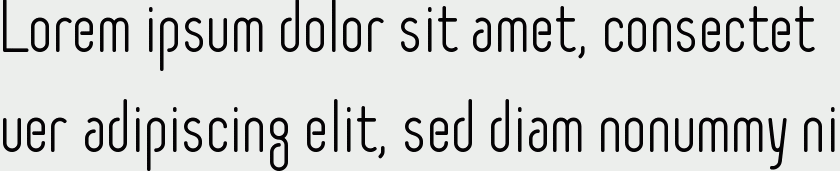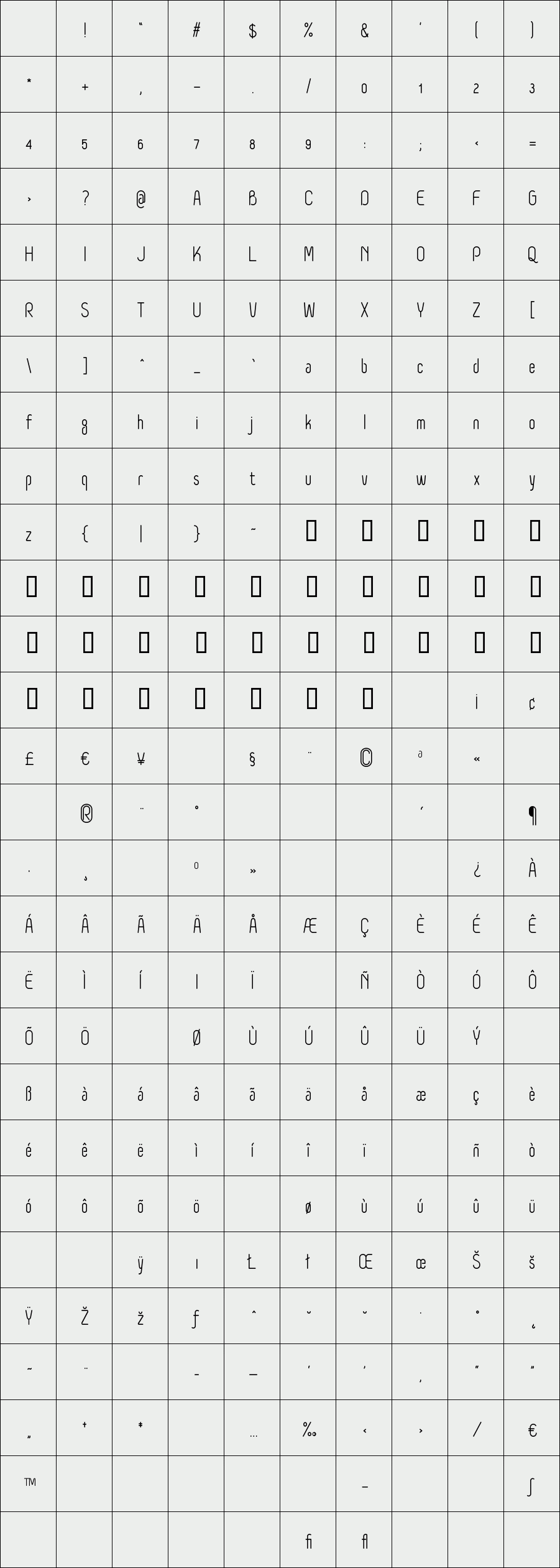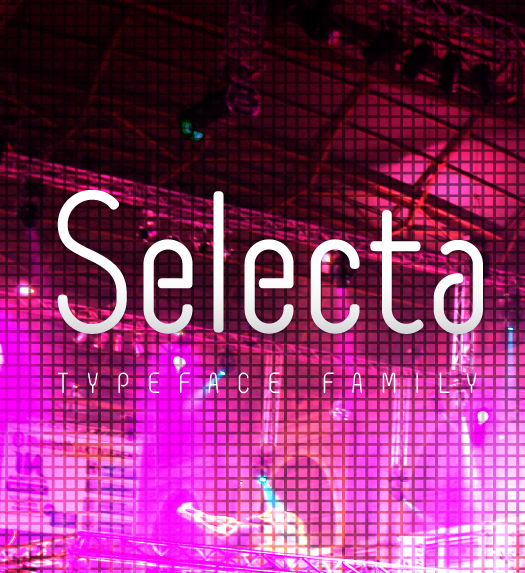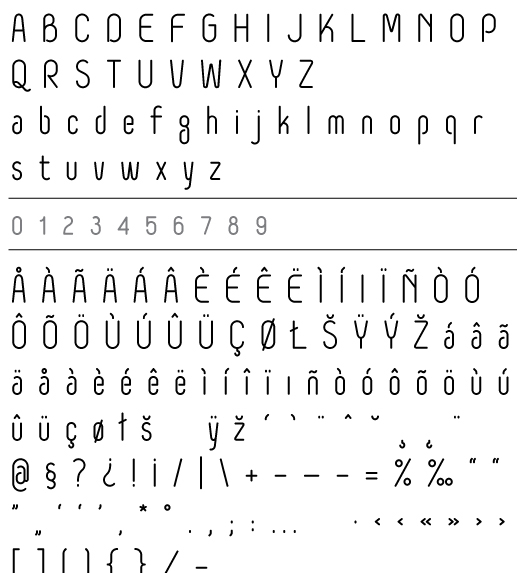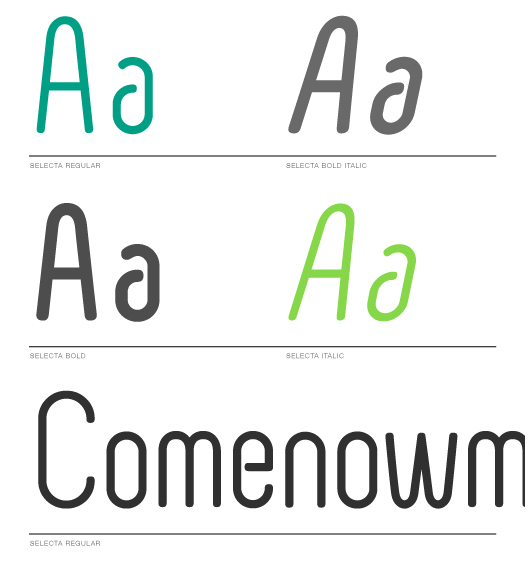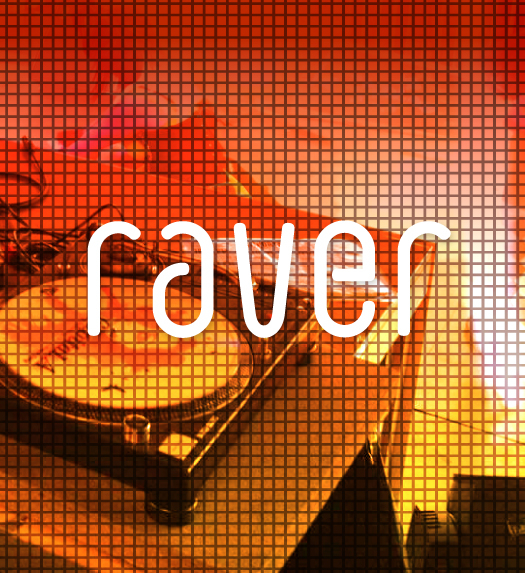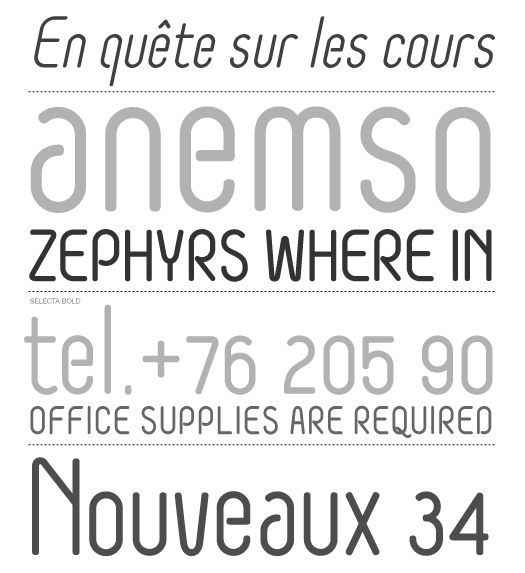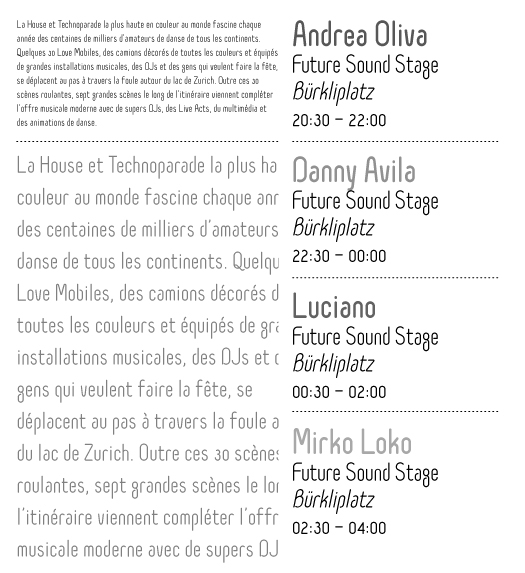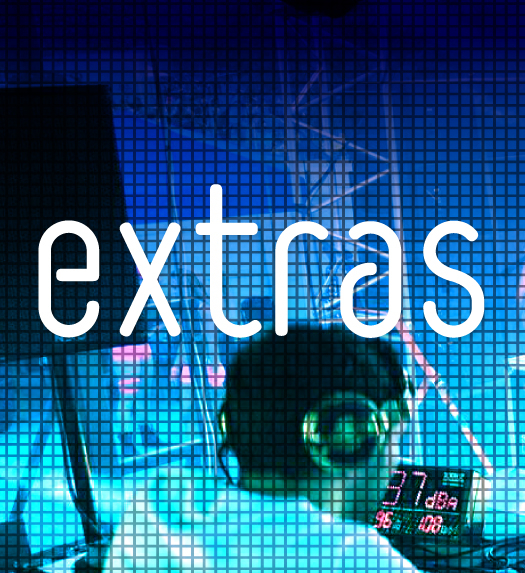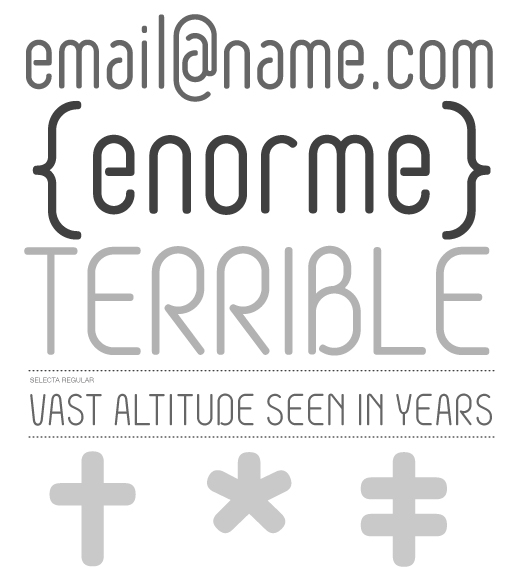
Selecta
/ Selecta regular
A contempory rounded sans serif design with a condensed aspect. Friendly and fresh, Selecta is suited for uses in both text and larger display settings.